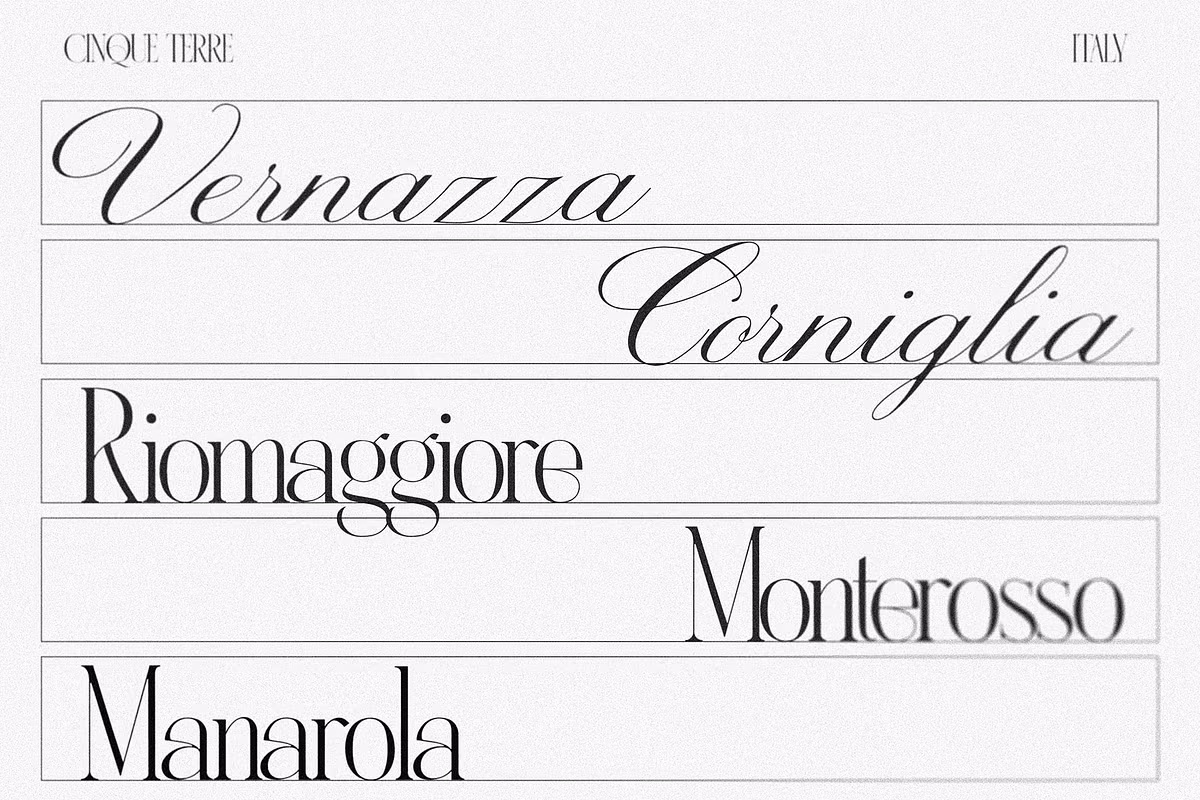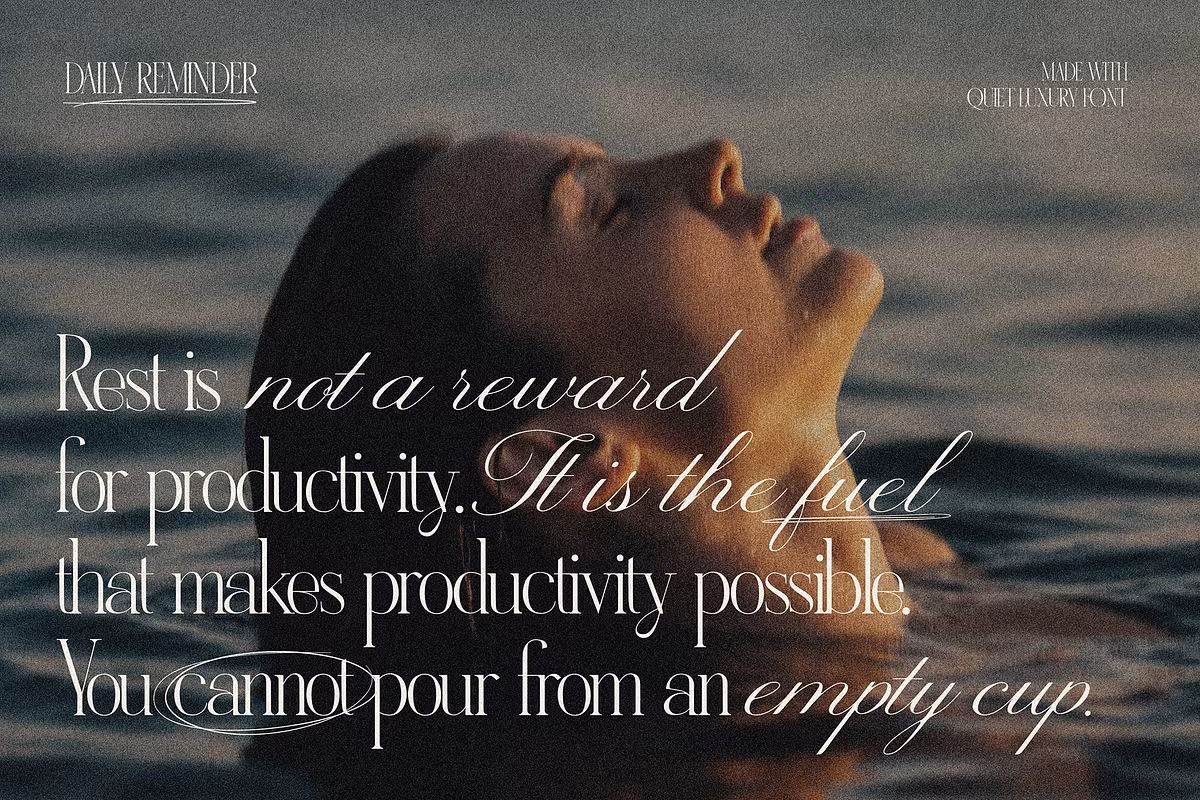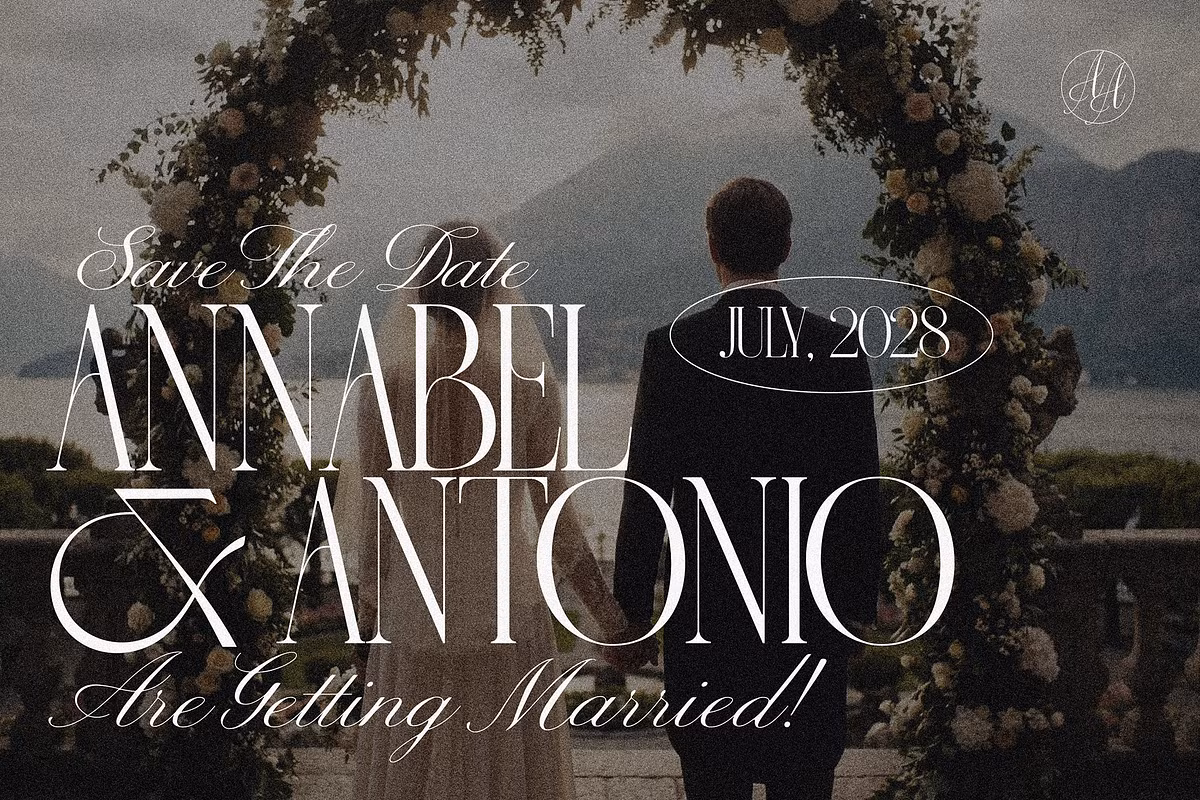
Quiet Luxury: Elegant Font Duo for Sophisticated Branding
The Quiet Luxury Font Duo is a beautiful combination of a classic, high-contrast serif and a lovely, flowing script. It’s perfect for people who like simple, elegant design, like you see in fancy fashion magazines. This font duo is great for making your brand look sophisticated and classy, without being too loud or flashy. With its special design touches, the Quiet Luxury Font Duo adds a touch of elegance and charm to anything you use it for, helping you take your branding to the next level. It’s all about understated luxury, where less is more, and quiet confidence is key.
The Quiet Luxury Font Duo has a style that’s all about being elegant and modern. It’s a serif typeface with long, thin stems and tiny hairlines, which gives it a structured and architectural feel. This makes it look confident and professional. The big difference between the thick and thin lines adds a lot of visual interest, making it great for logos and branding that want to stand out without being too much.
The script font is really nice because it looks like it was drawn by hand. It has big, flowing lines and curves that make it feel personal, like someone’s signature from a long time ago. When you put this font with a more structured one, it creates a nice balance between being fancy and being friendly. This means that companies can use it to look sophisticated, but still seem warm and welcoming to people.
Character Sets
The Quiet Luxury Font Duo is really special because it has a lot of characters that can be used in many different ways. The Quiet Luxury Script is especially nice, with its fancy cursive style that looks like it was written a long time ago. You can use it for lots of things, like formal events or just everyday stuff, and it will always make your message look beautiful. The way the letters flow together makes it perfect for lots of different situations, so you can use it to make your words look really pretty.
The Quiet Luxury Serif is a great choice for any branding project because it looks really fancy and elegant. Its tall design and strong lines make it stand out, and it’s easy to read. You can use it for big headings or smaller text, and it comes with lots of different letters, numbers, and punctuation marks. This means you can use it for all sorts of things, from titles to body text, and it will always look put together and professional. Overall, the Quiet Luxury Serif is a solid foundation for any design project, and it will help you create a cohesive and polished look.
Use Cases
The Quiet Luxury Font Duo is perfect for lots of different branding projects. It really stands out in certain situations, like when you need a font that’s elegant and sophisticated. Here are some specific examples of where this font duo works really well:
- Luxury Branding: Perfect for logos of clothing brands, interior designers, or boutique hotels, the combination of the serif and script fonts lends an air of exclusivity and sophistication, appealing to high-end clientele.
- Wedding Stationery: Elevate your wedding invitations, menus, and place cards with the elegant touch of the Quiet Luxury Font Duo. The script adds a romantic flair, while the serif ensures clarity and elegance.
- Editorial Design: For magazine headlines, book covers, and fashion layouts, the high contrast of the serif and the personal touch of the script create visually stunning compositions that draw readers in.
- Social Media: Create aesthetic quote graphics and mood board overlays that resonate with your audience. The combination of the two fonts can help maintain a cohesive brand identity across various platforms.
When considering how to pair the Quiet Luxury Font Duo with other design elements, think about the overall aesthetic you want to achieve. The combination of the serif and script fonts can work harmoniously with minimalist designs, photography, and other graphic elements that complement its elegance.
By using the Quiet Luxury Font Duo thoughtfully, you can create a sophisticated and memorable brand identity that truly resonates with your audience.